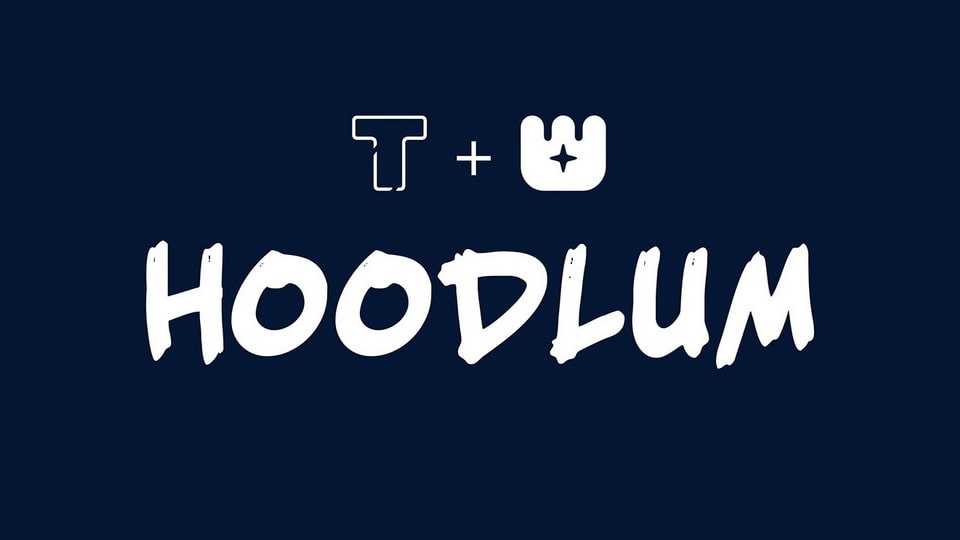
LT Hoodlum Font › Fontesk
Download LT Hoodlum font, a permanent marker styled typeface that is well-suited for graffiti. The font is bold, dark, and easy to read, even at a distance.